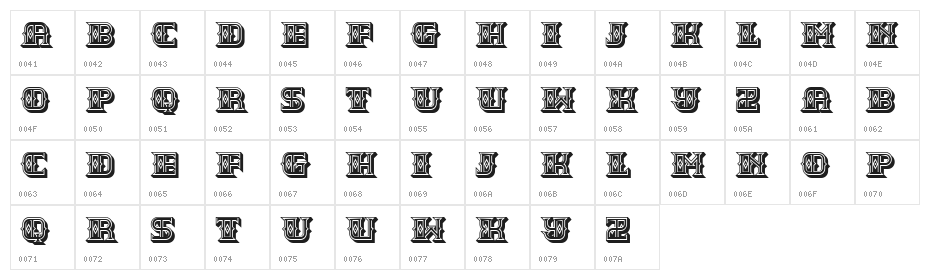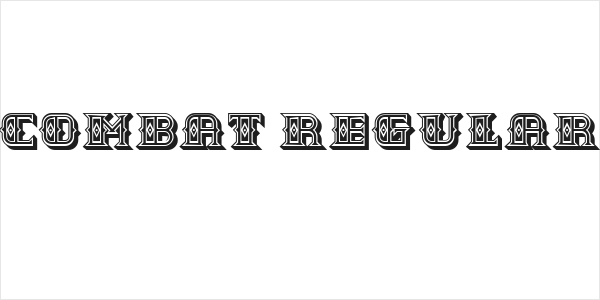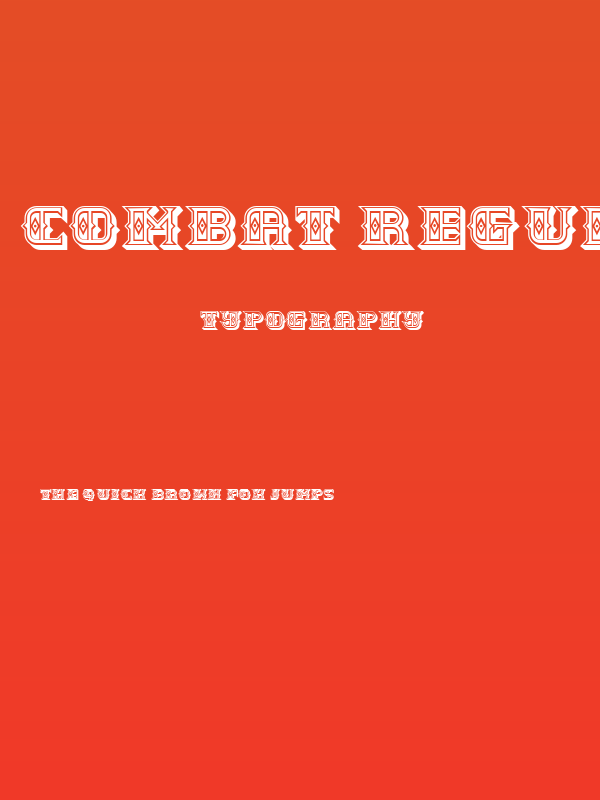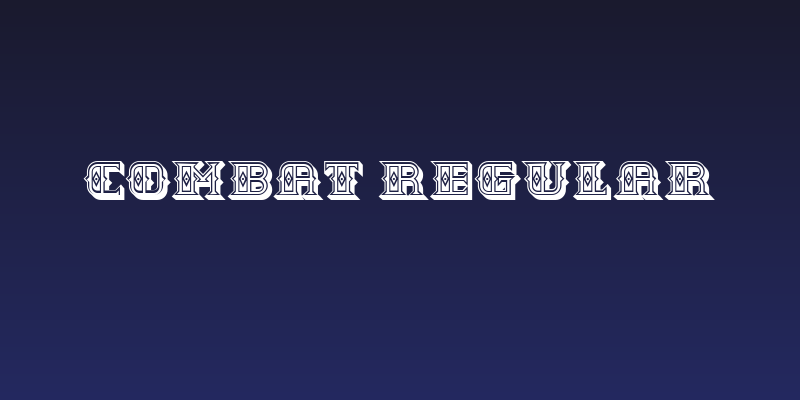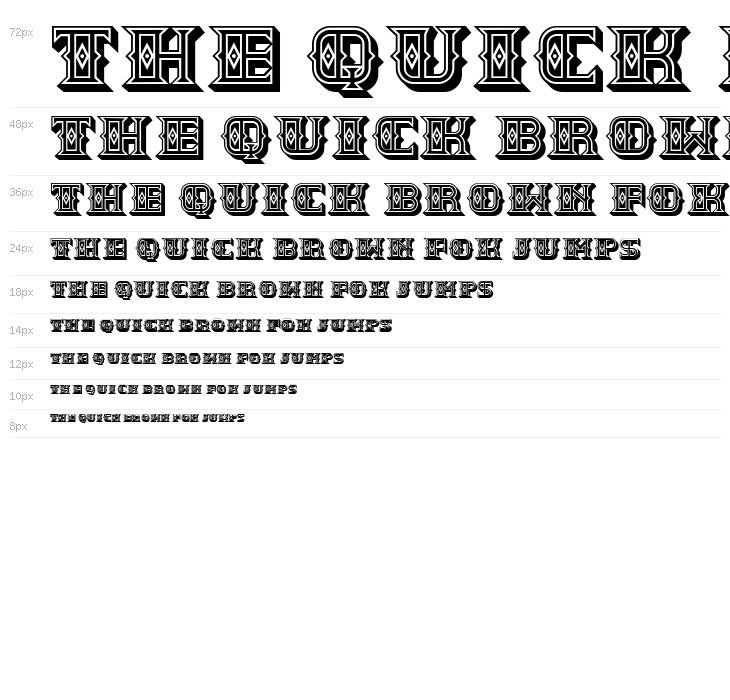
Combat Regular Font
Combat Regular Description
This font features a bold, decorative style with intricate detailing within each character. The letters are outlined with a thick border, giving them a strong, impactful appearance. The interior of each character is filled with geometric patterns, adding a layer of complexity and visual interest. The font maintains a consistent height and width across all characters, ensuring uniformity. Its boldness and decorative elements make it stand out, suitable for projects that require a striking visual presence.
Proposed ProjectsIdeal for use in posters, logos, and branding materials where a bold and decorative style is desired.